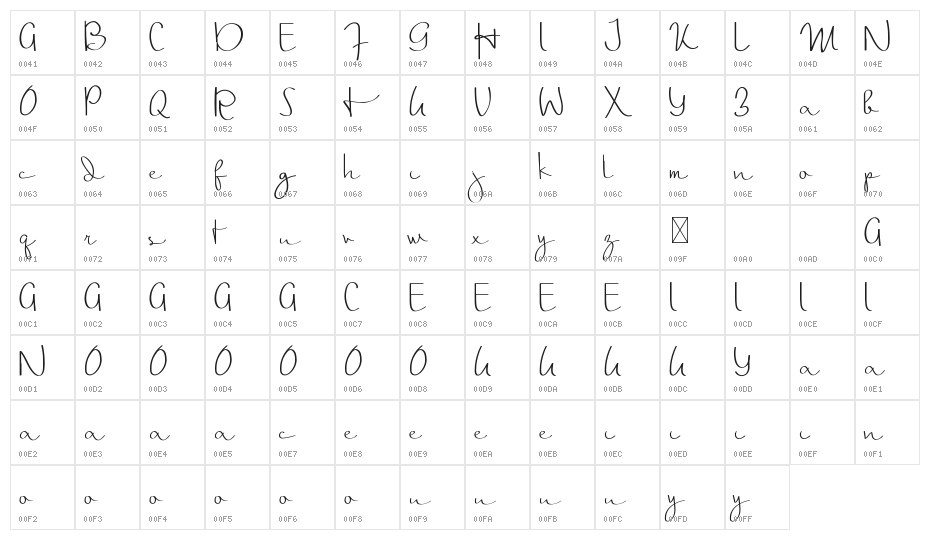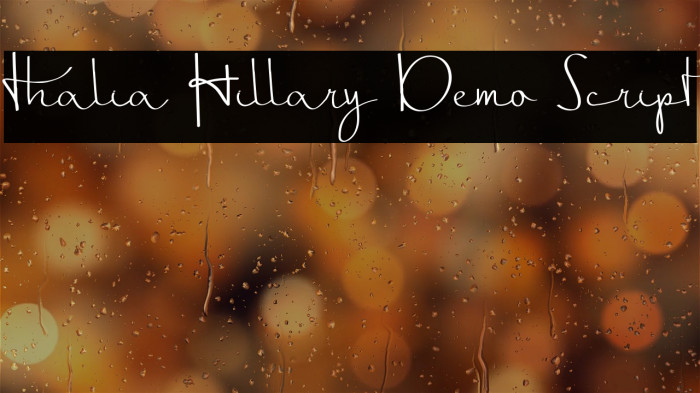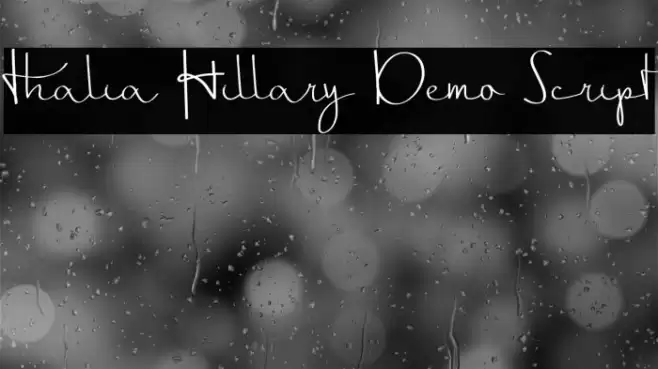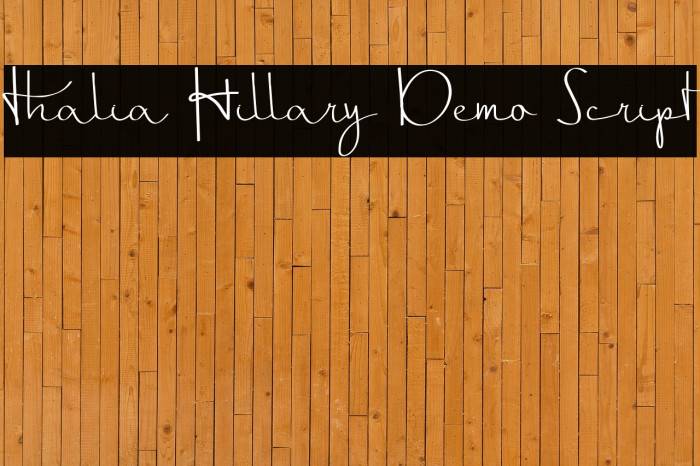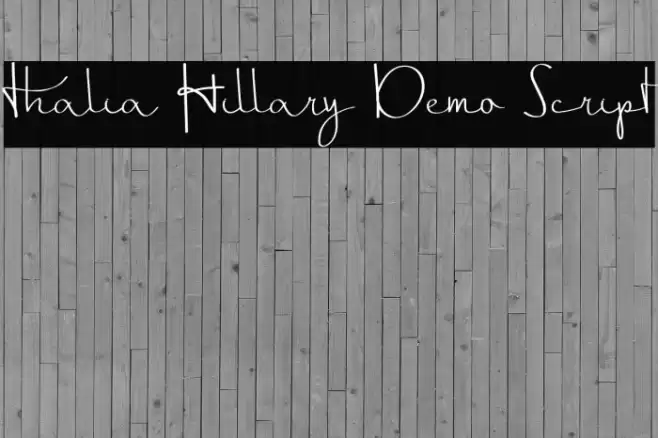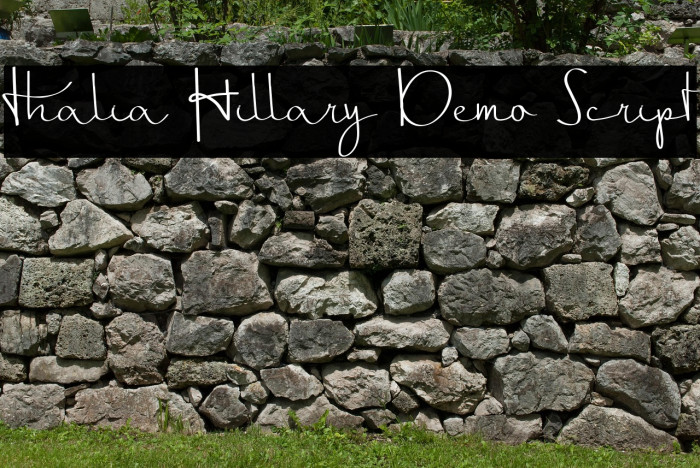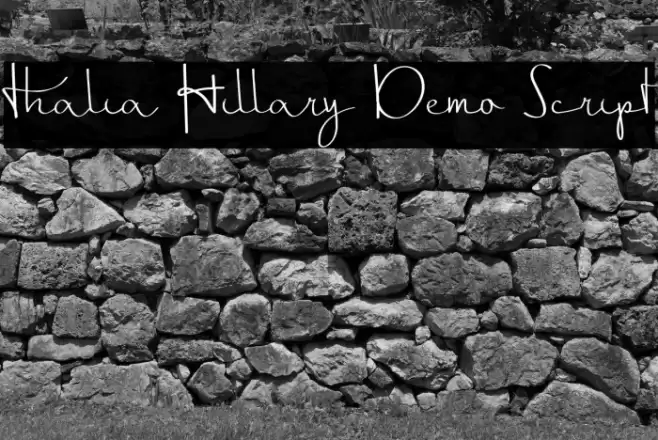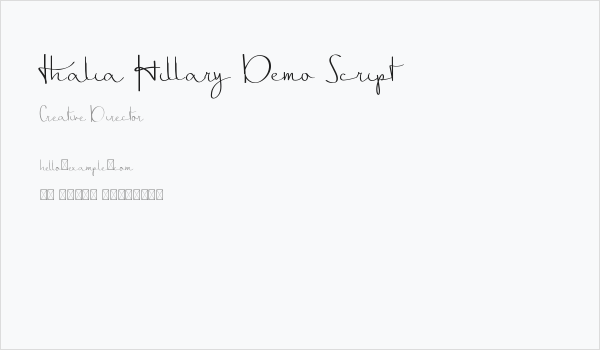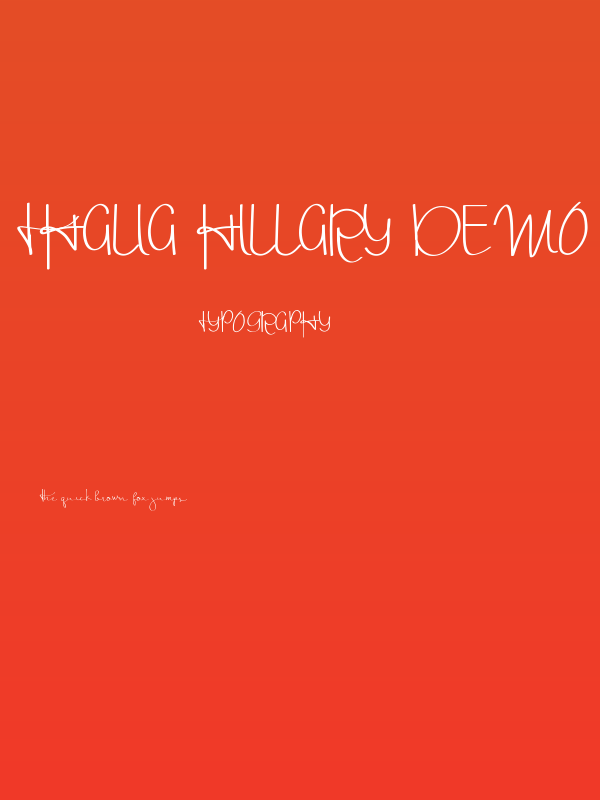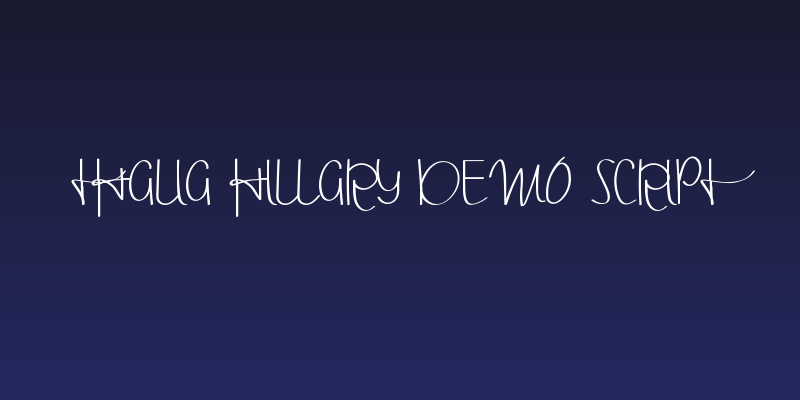
Thalia Hillary Demo Script Font
Thalia Hillary Demo Script Description
This font exudes a playful and elegant script style, characterized by its flowing, cursive letterforms that mimic natural handwriting. The uppercase letters are tall and slender, with a slight slant that adds a dynamic feel. The lowercase letters are more rounded and connected, enhancing the script's fluidity. The strokes are consistent in width, providing a harmonious and balanced appearance. The font's overall aesthetic is both casual and sophisticated, making it suitable for a variety of creative applications. Its unique charm lies in the subtle variations between characters, which add a personal touch to any design.
| Use Case | Logos, Invitations, Social Media |
| Proposed Projects | Ideal for wedding invitations, greeting cards, branding projects, and social media graphics. |